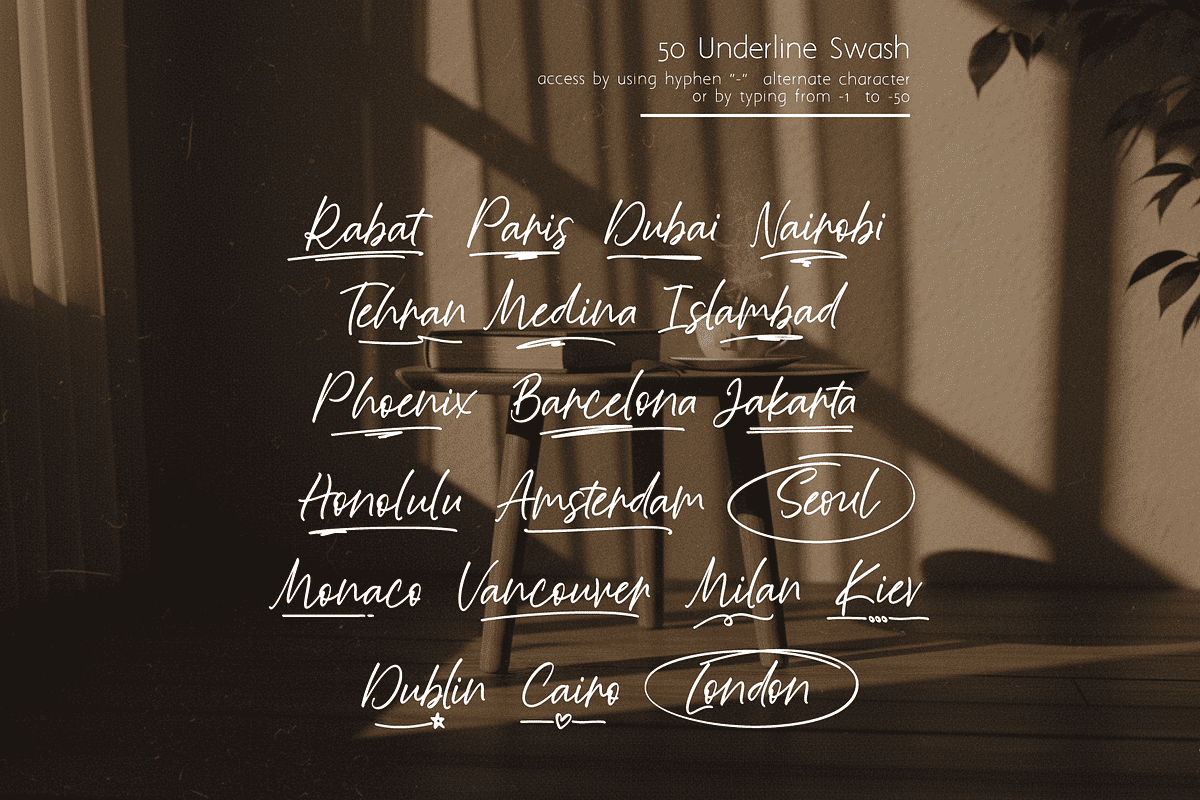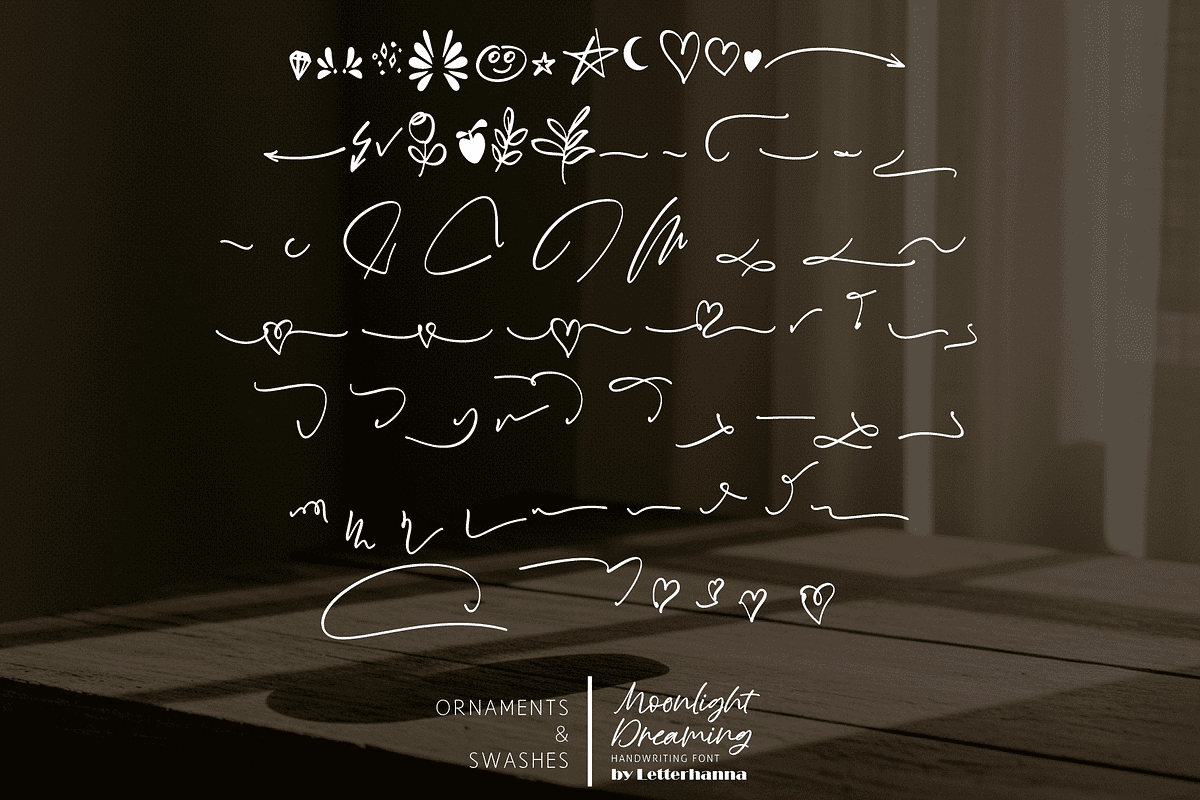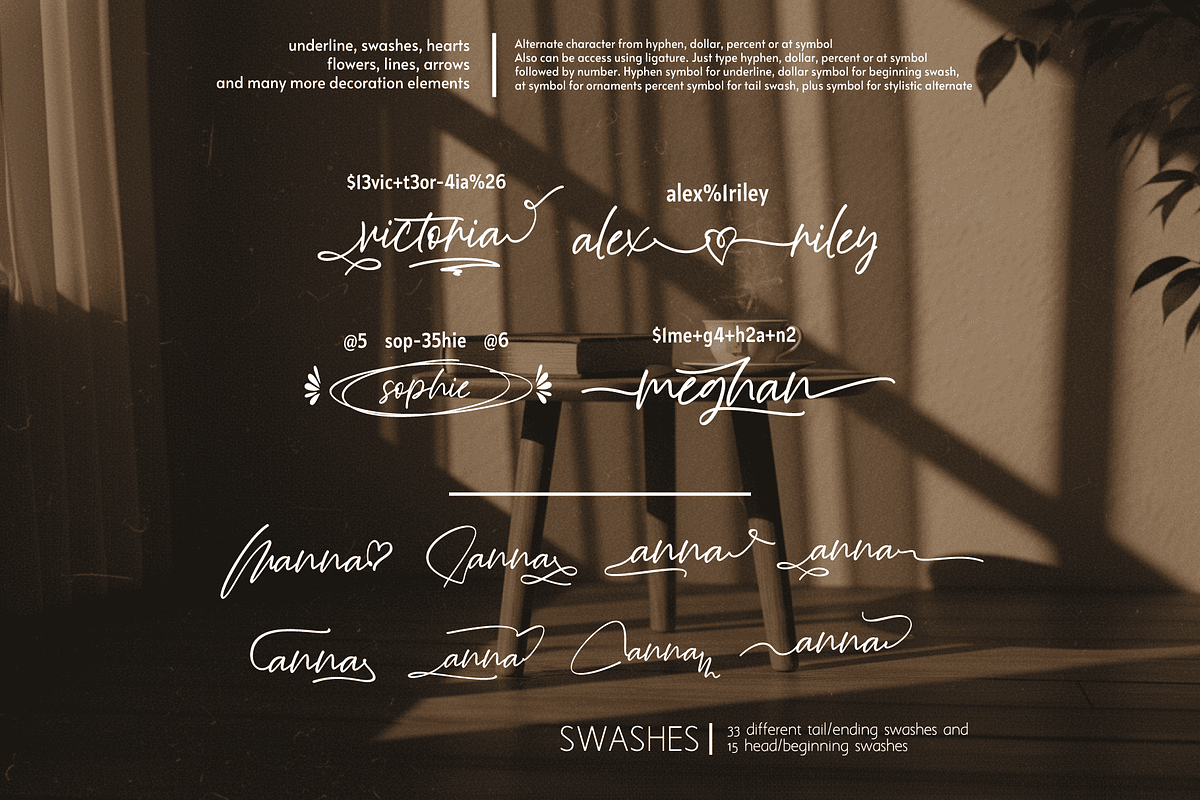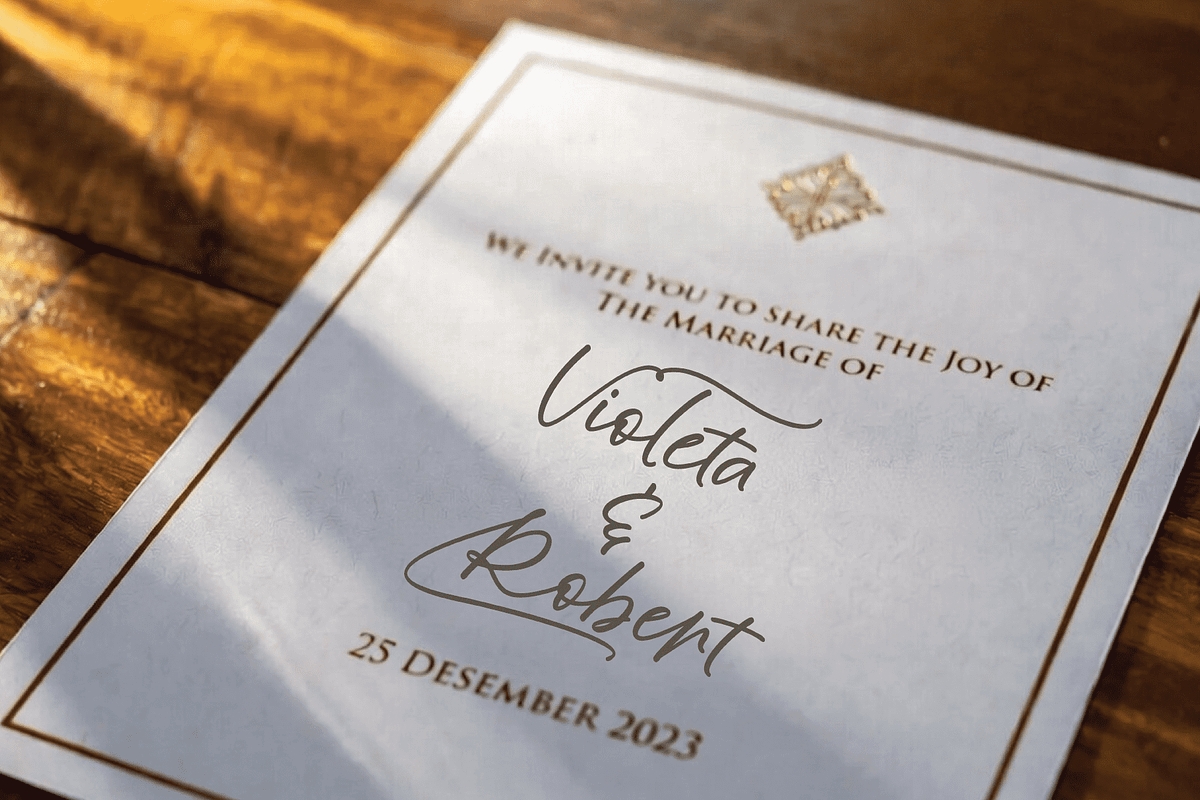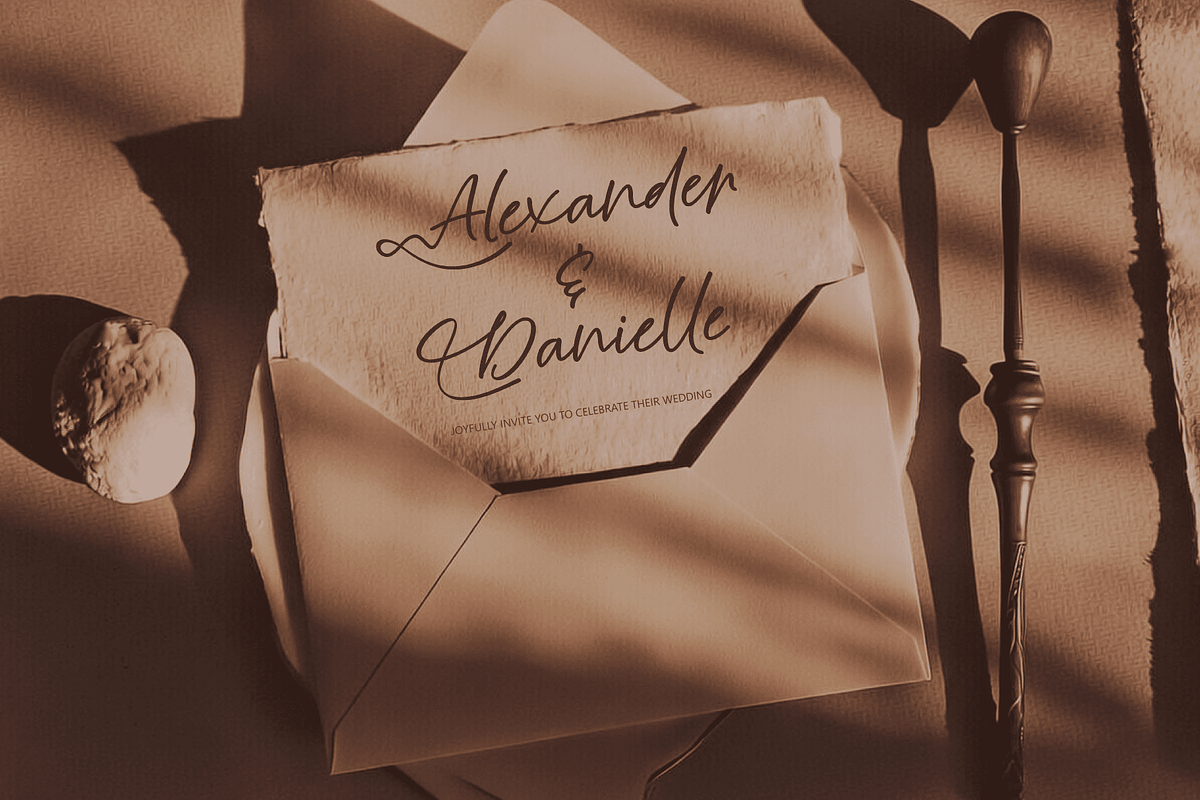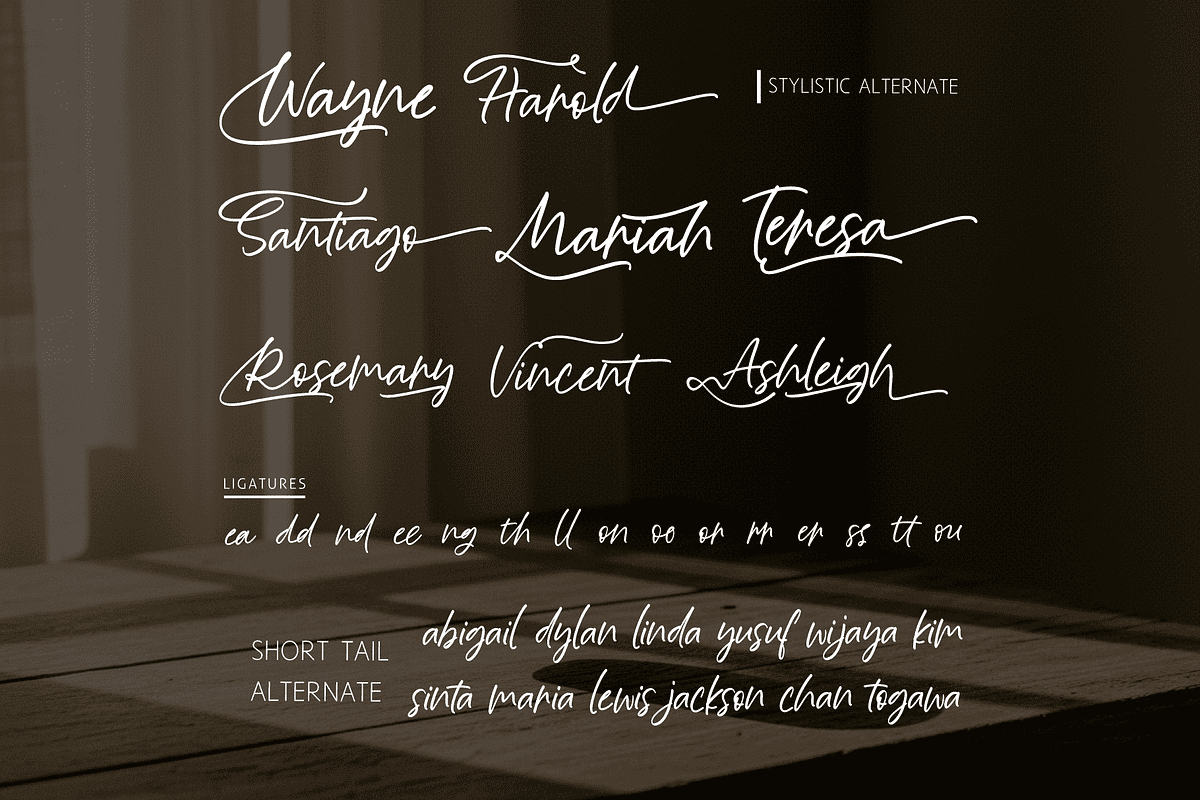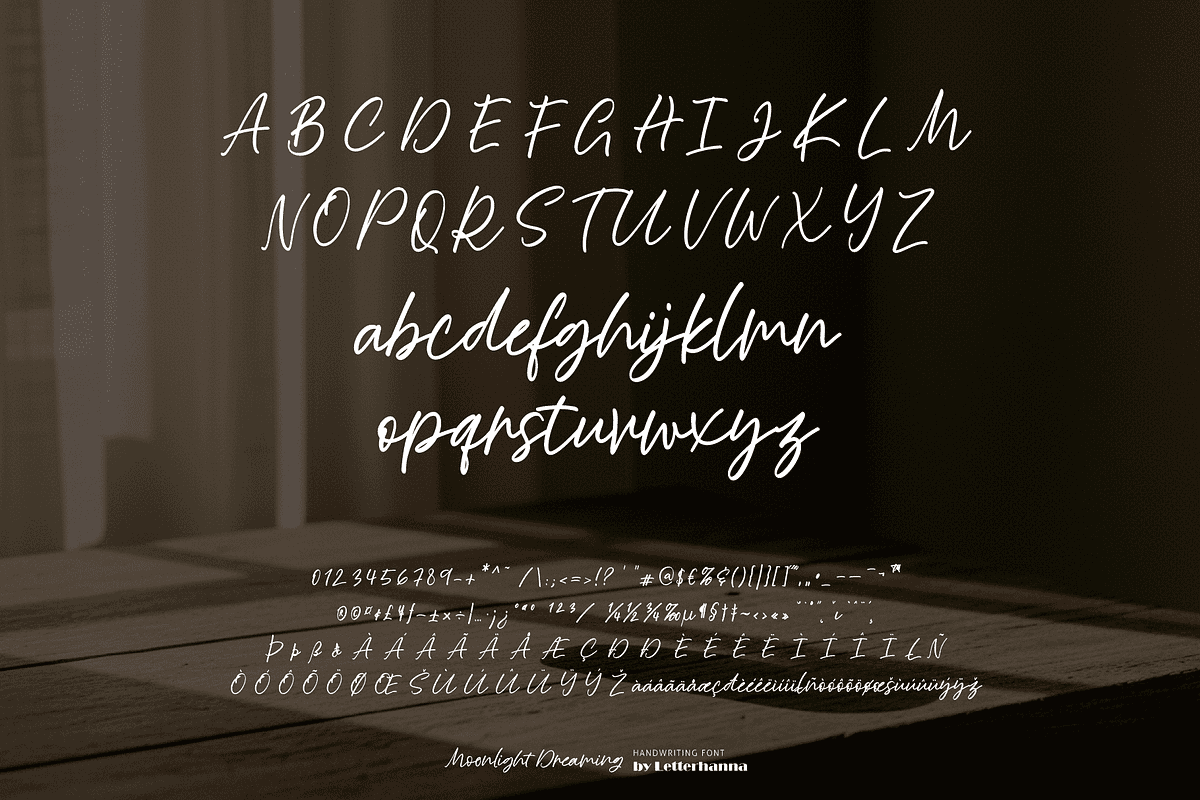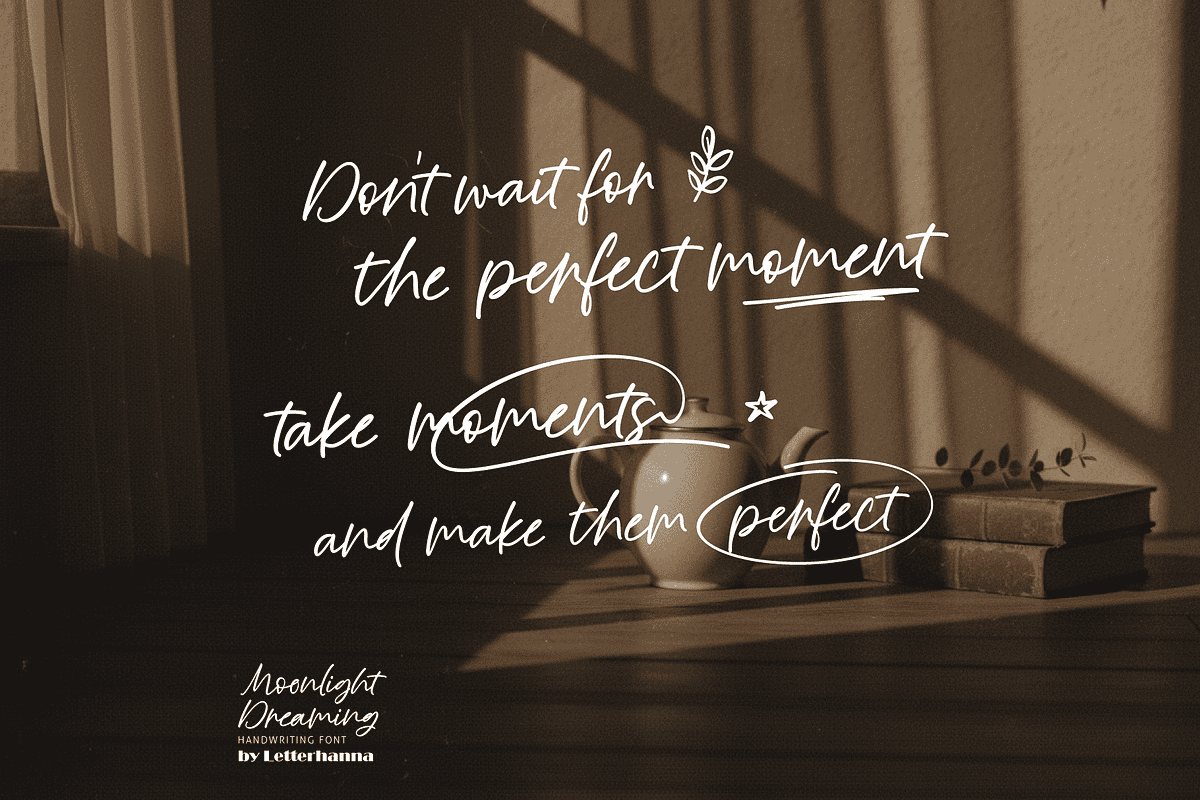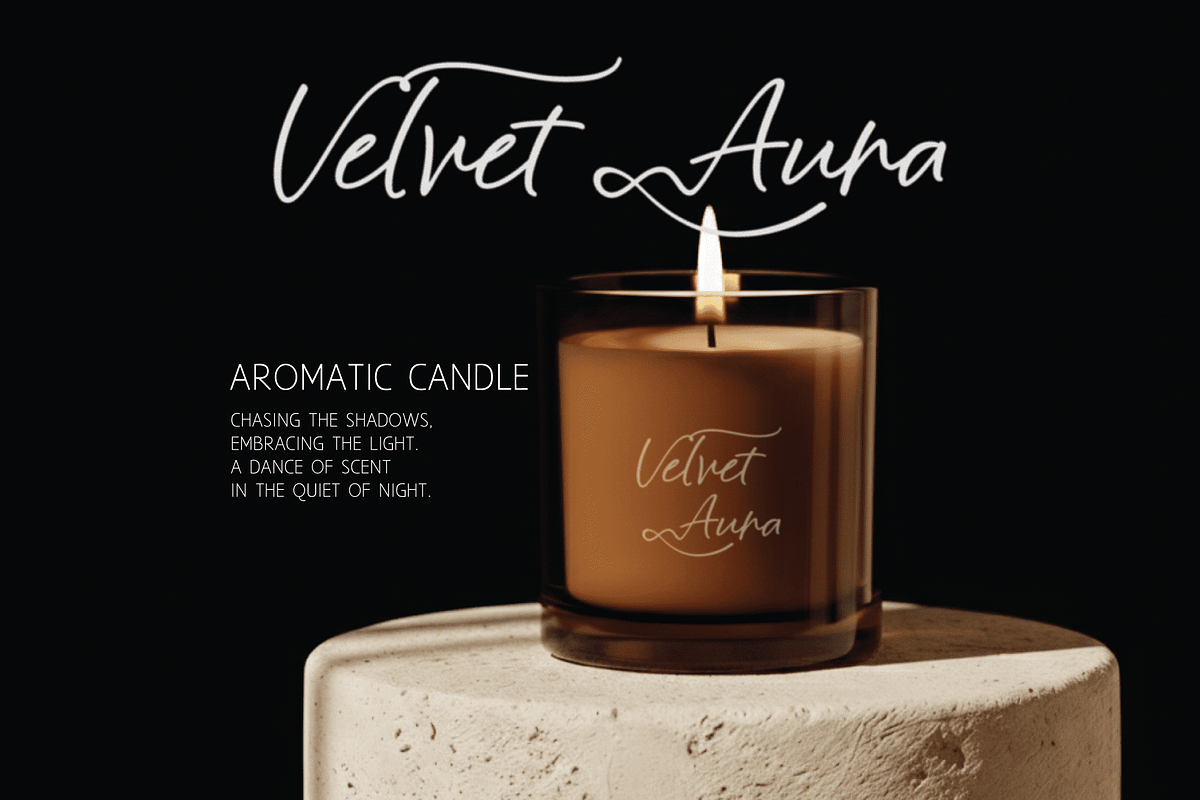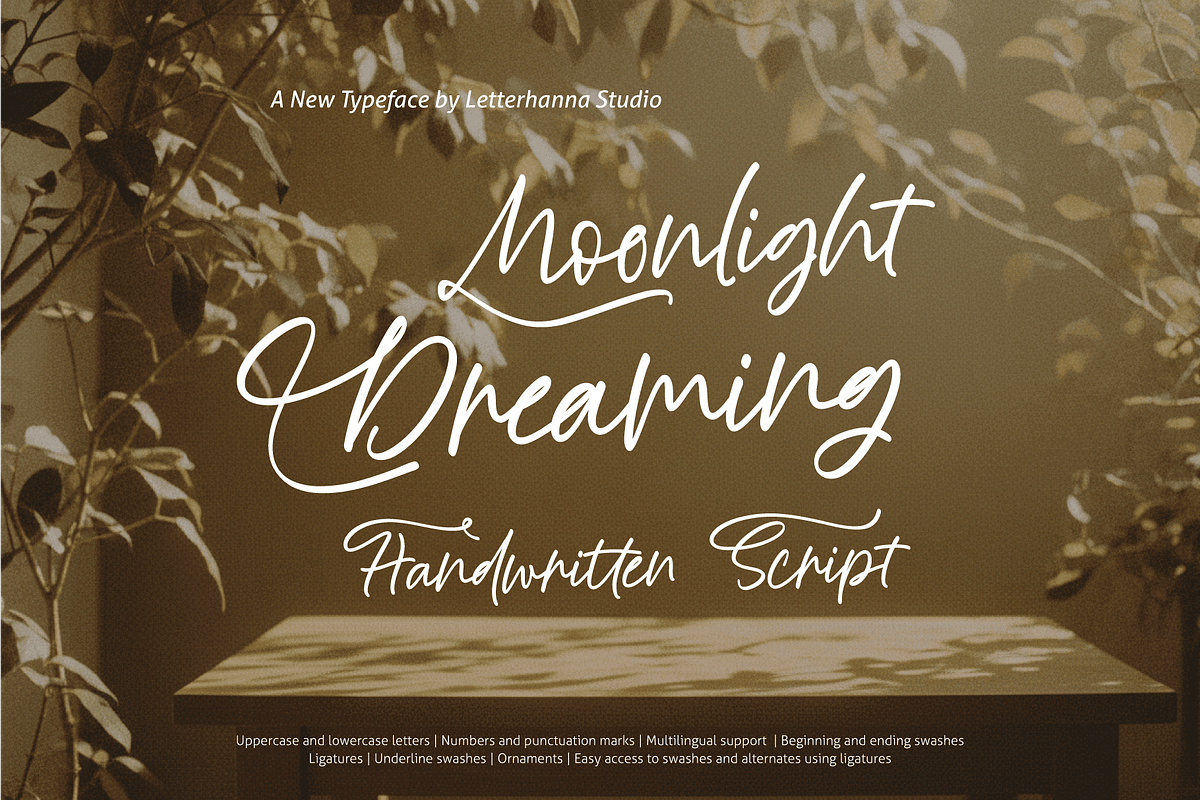
Moonlight Dreaming Handwritten
Moonlight Dreaming was born in quiet hours— when the world slows down, and thoughts begin to wander.
Each stroke flows like a whispered letter, written not to impress, but to feel. Soft curves, playful swashes, and endless alternates allow every word to find its own rhythm.
This is not just handwriting. It’s a moment. A pause. A dream written in ink.
Easy Access to Glyphs and Swashes
Accessing Swashes and Ornaments Underline Swashes: Use a hyphen symbol "-" followed by a number between 1 and 50. For example, type "-3", "-22", or "-17" to get various underline swashes. Head/Beginning Swashes: Use a dollar sign followed by a number between 1 and 15. Tail/Ending Swashes: Use a percent sign "%" followed by a number between 1 and 33. For example, type "%3" or "%15" to get various tail/ending swashes. Ornaments: Use an "at" symbol followed by a number between 1 and 21.
PUA Encoding for Ease of Use, which means you can access all the glyphs and swashes with ease!
Font Features -Uppercase and lowercase letters -Numbers and punctuation marks -Multilingual support -Ligatures -Beginning and ending swashes -Underline swashes -Ornaments -Easy access to swashes using ligatures